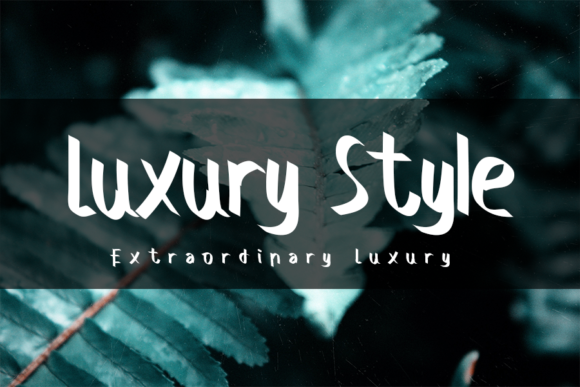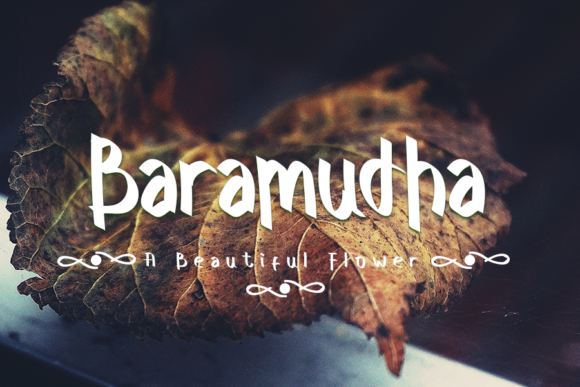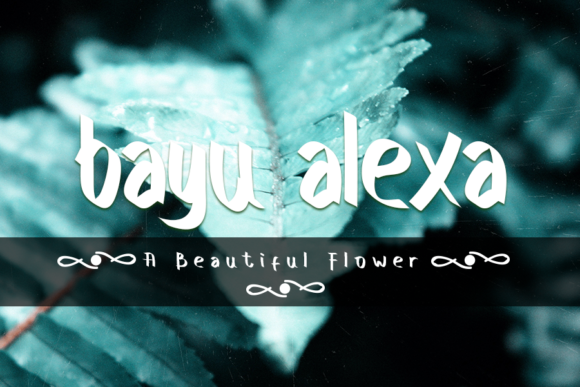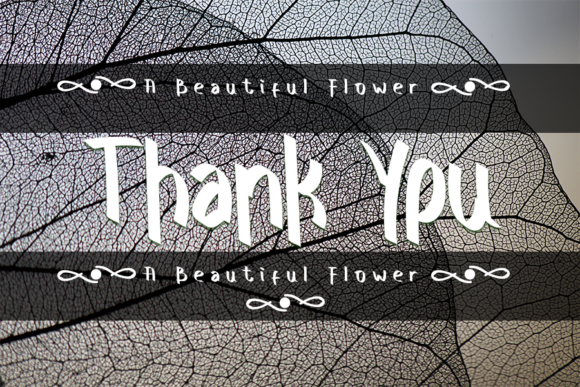
Glowing Zone Font
About Glowing Zone Font
Glowing Zone is an authentic handwritten font, created with the help of a brush pen. Its relaxed style makes it fitting to a wide range of designs. Let your imagination be the limit!